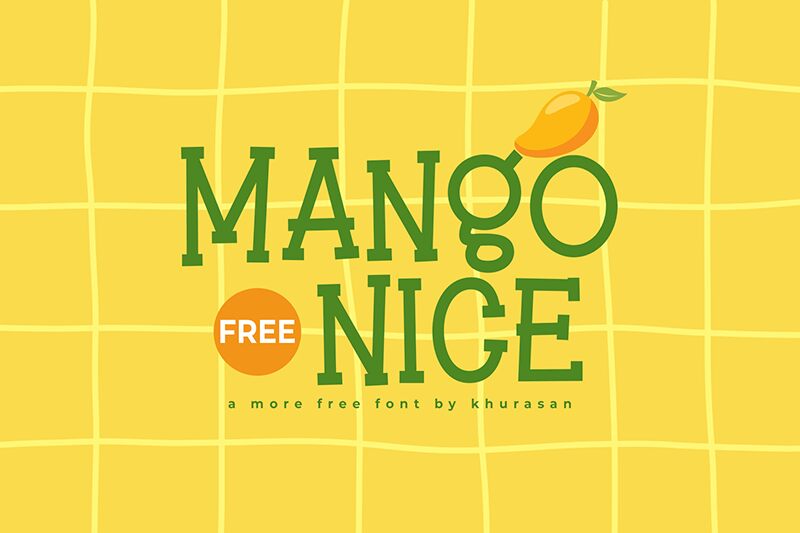
Mango Nice
Mango Nice font designed by Khurasan is a display cartoon typeface that offers a lively and playful twist to every character. Each connection in the letters is done smoothly for an absolutely sweet appearance when reading words and texts. To further elevate the artwork created with it, stunning end strokes can be added to the start or/and end of words.
As warm as mangoes, Mango Nice will add freshness and energy to any typographic project where it’s used. It can create beautiful typography for magazines, invitations cards, fashion branding, printing press headlines, T-shirt designs, logos and packaging designs. It will look wonderful in cafes or restaurant menus, movie titles on covers or posters etc…